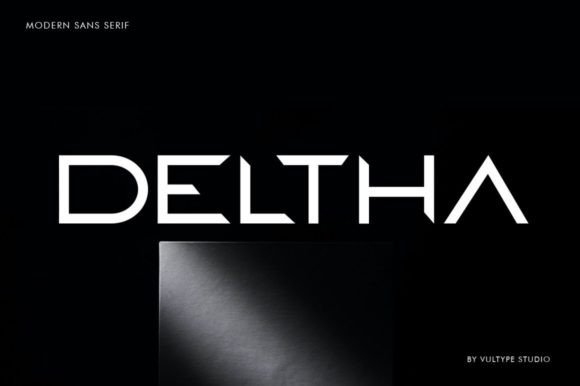
Delve into the realm of Deltha, a sans serif font family crafted by the visionary Vultype, a name synonymous with typographic excellence. Deltha is not just a font; it's a gateway to a world where creativity knows no bounds and designs soar to new heights. This collection of fonts is designed to ignite your imagination and make your designs shine like never before.
With its distinctive uppercase letters, Deltha exudes an aura of futurism and modernity. Its clean lines and sharp edges create a visual impact that is both captivating and timeless. Whether you're crafting a striking logo, designing an eye-catching poster, or creating social media content that demands attention, Deltha is your go-to font.
Are you ready to elevate your designs and make a lasting impression? Look no further than Deltha. Its versatility knows no bounds. Dive into a world of endless possibilities, where your ideas take center stage and your creativity flows freely. Transform ordinary designs into captivating masterpieces with Deltha, the font that pushes the boundaries of visual communication.
Step into the spotlight and let your designs speak volumes. Deltha's bold and confident personality is perfect for creating logos that command attention. Its clean and minimalist aesthetic ensures that your brand's message is conveyed with clarity and impact.
Unleash your creativity and let Deltha take your social media presence to new heights. Create Instagram reels that captivate audiences and leave a lasting impression. Deltha's dynamic and modern style is the perfect complement to your captivating visuals.
With Deltha, the possibilities are limitless. Whether you're a seasoned designer or just starting your creative journey, this font is your trusted companion. Its user-friendly nature makes it accessible to all, while its stunning results are sure to impress even the most discerning eye.
So why settle for ordinary when you can have extraordinary? Embrace Deltha today and unlock a world of design possibilities. Let your creativity soar and experience the transformative power of a font that will revolutionize your designs. Dare to be different, dare to stand out. Deltha is the key to unlocking your true creative potential.